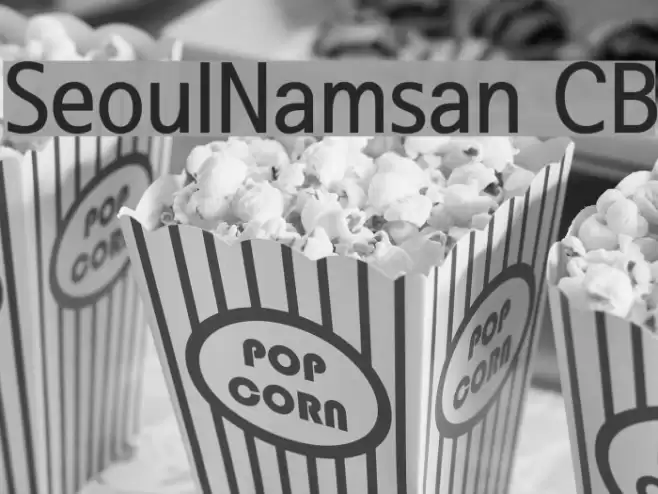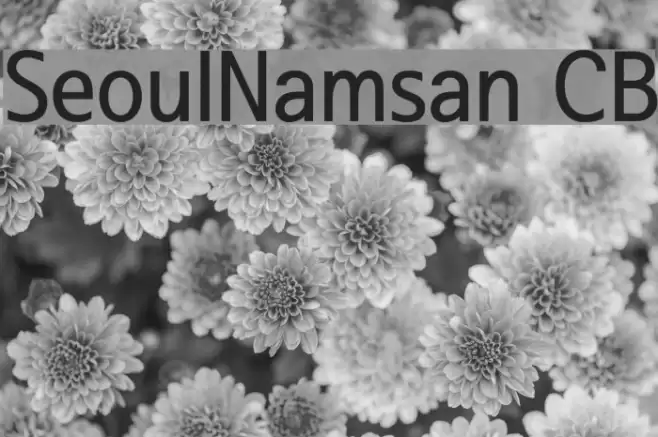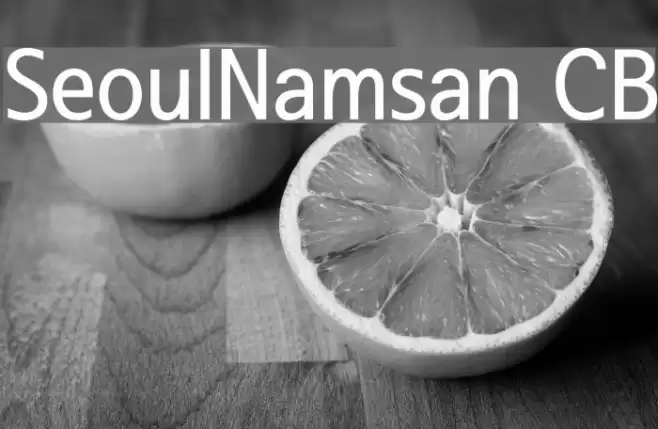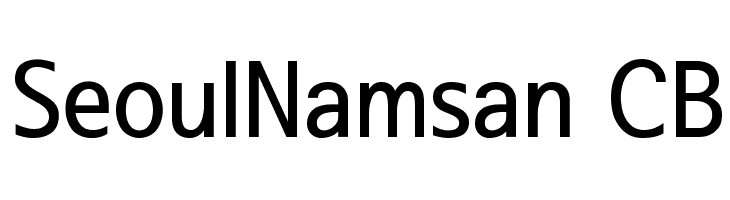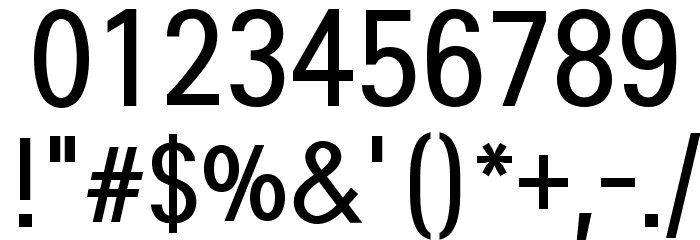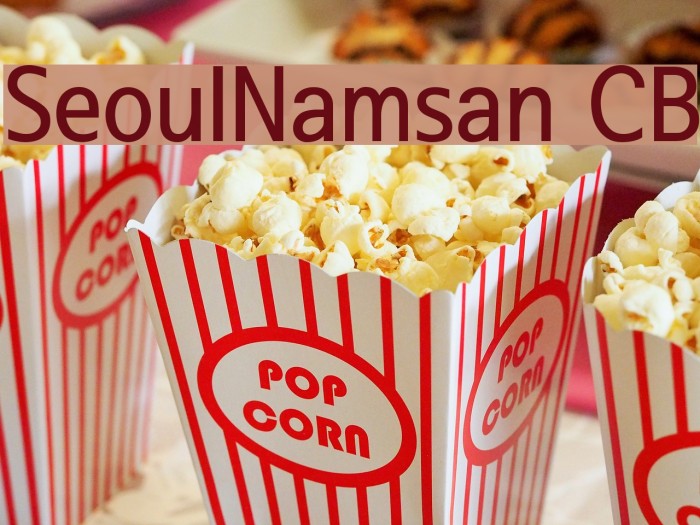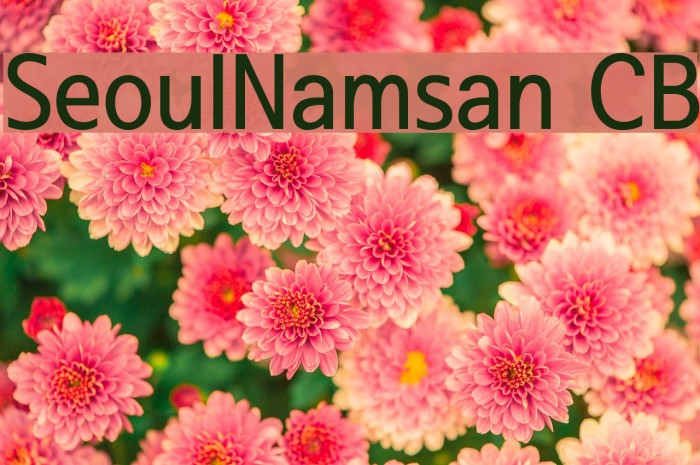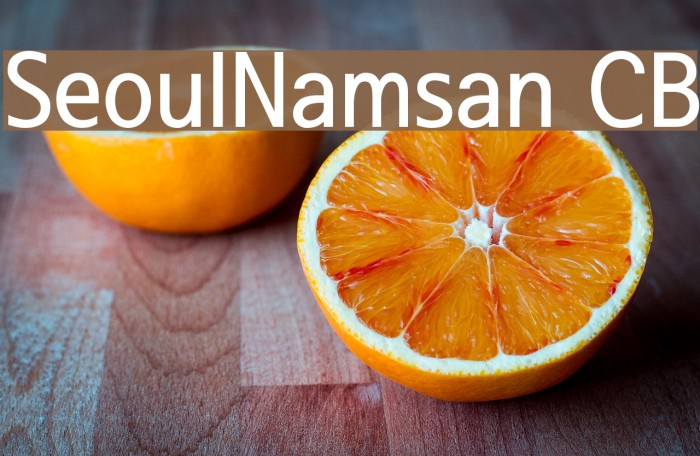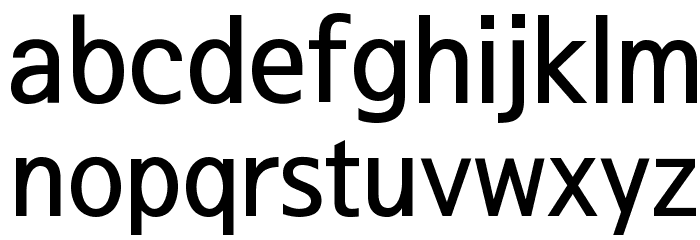
SeoulNamsan CB Font
SeoulNamsan CB Description
This font features a clean and modern sans-serif design, characterized by its simplicity and readability. The letters are evenly spaced with a uniform stroke width, providing a balanced and harmonious appearance. The uppercase and lowercase letters are well-proportioned, making it suitable for both display and body text. The numerals are clear and distinct, ensuring legibility in various contexts. Special characters are included, maintaining the font's cohesive style. Overall, this font exudes a contemporary feel, making it versatile for a wide range of applications.
A modern, clean sans-serif font with uniform stroke width and excellent readability from Uncategorized fonts.